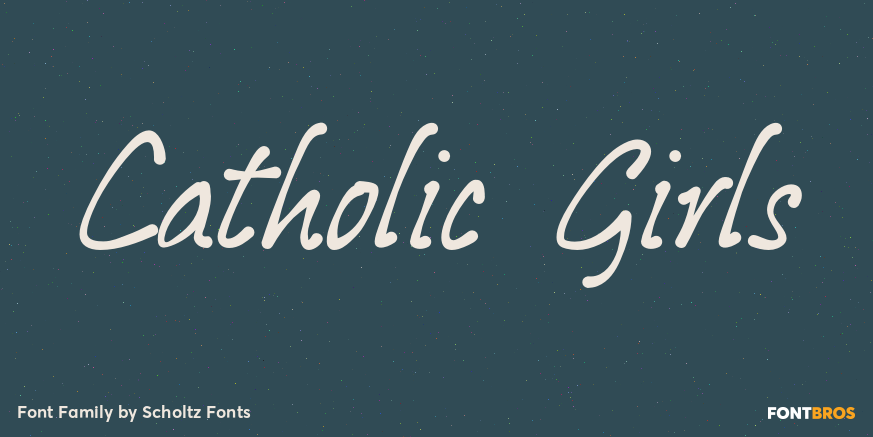
Catholic Girls
About Catholic Girls
Catholic Girls is a timeless, handwriting-based, semi-calligraphic font that is highly readable yet has an informality combined with a quiet elegance. Above all else, Catholic Girls is well-behaved, ladylike, and can be expected to behave correctly and…